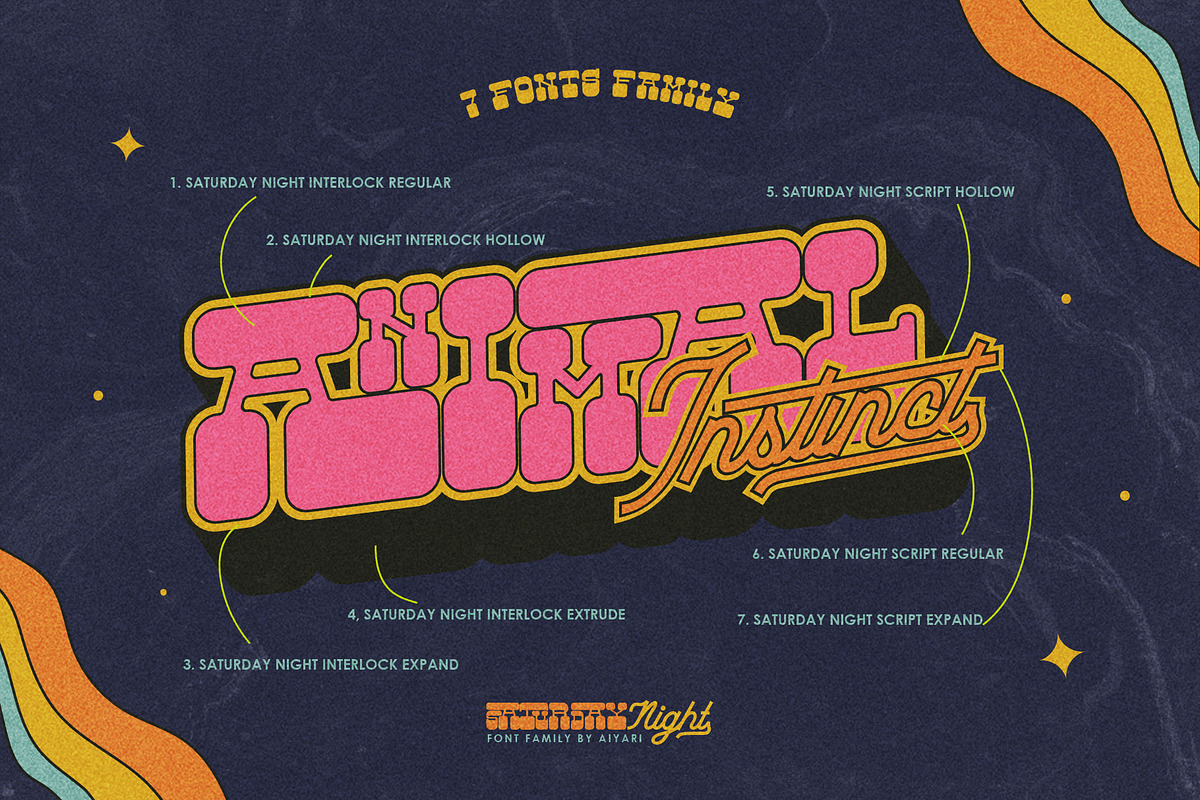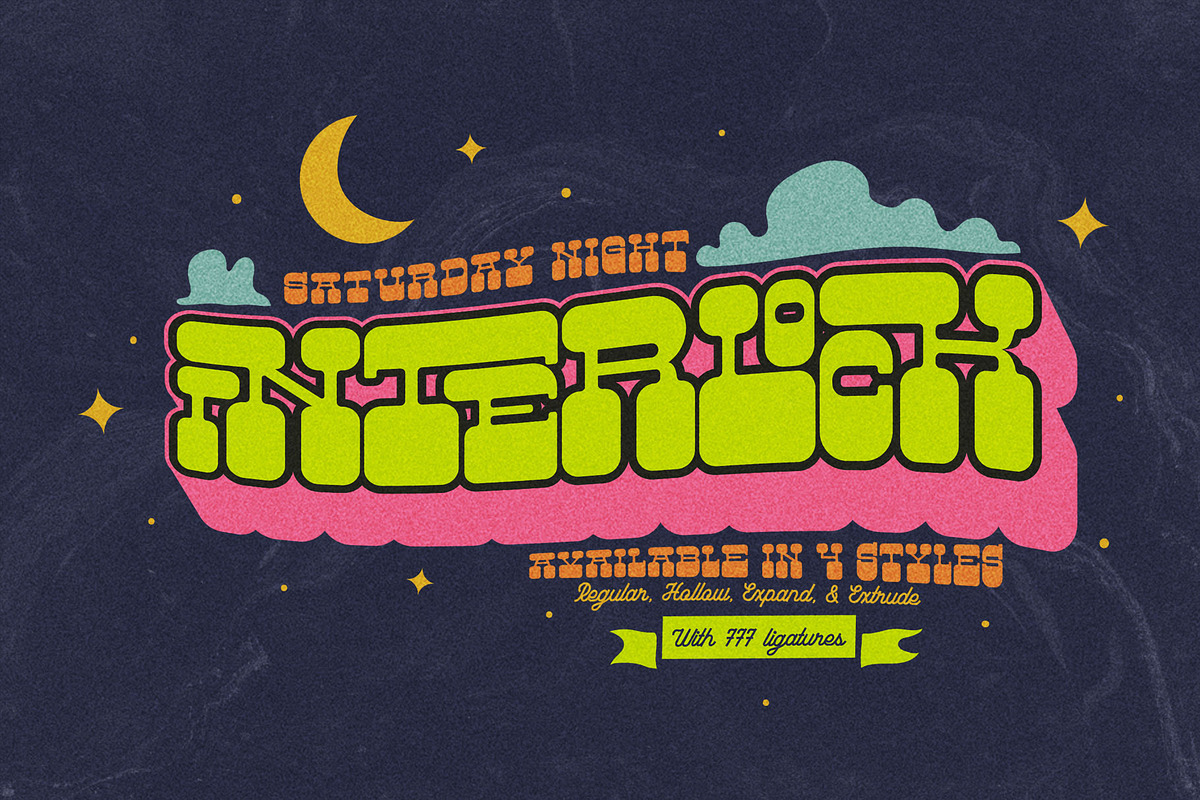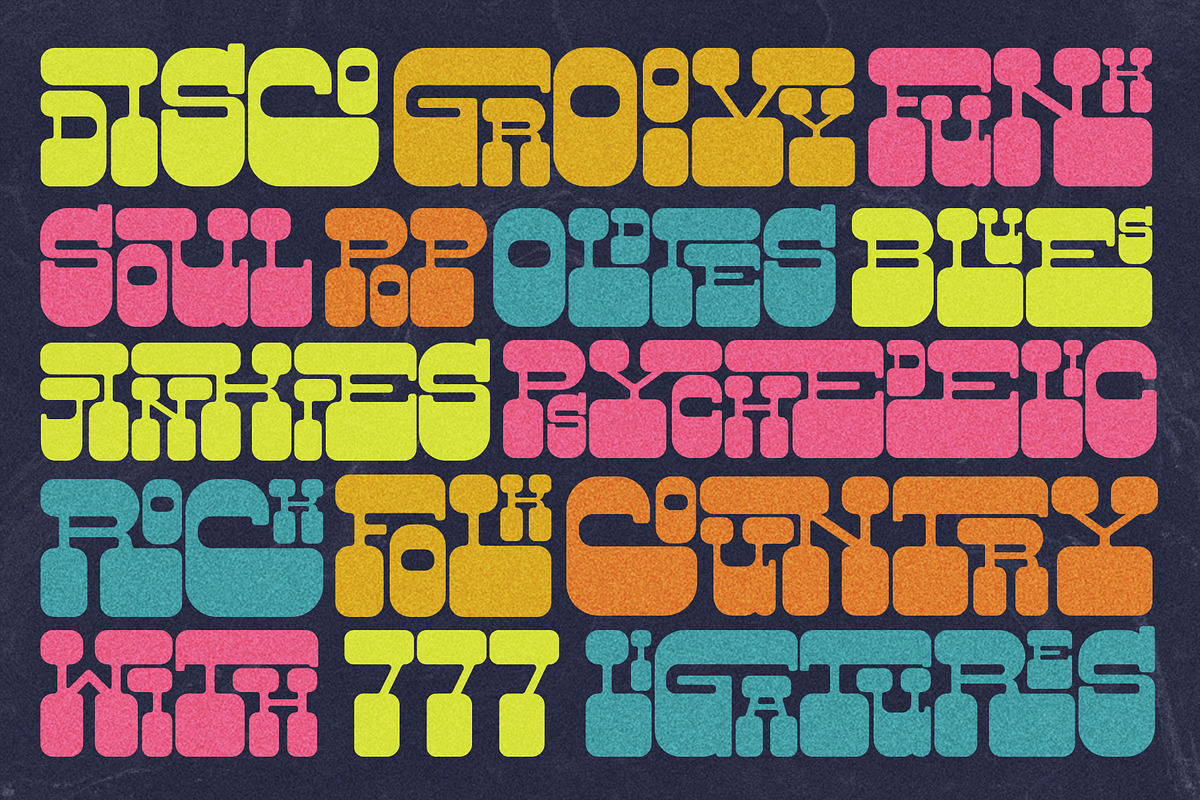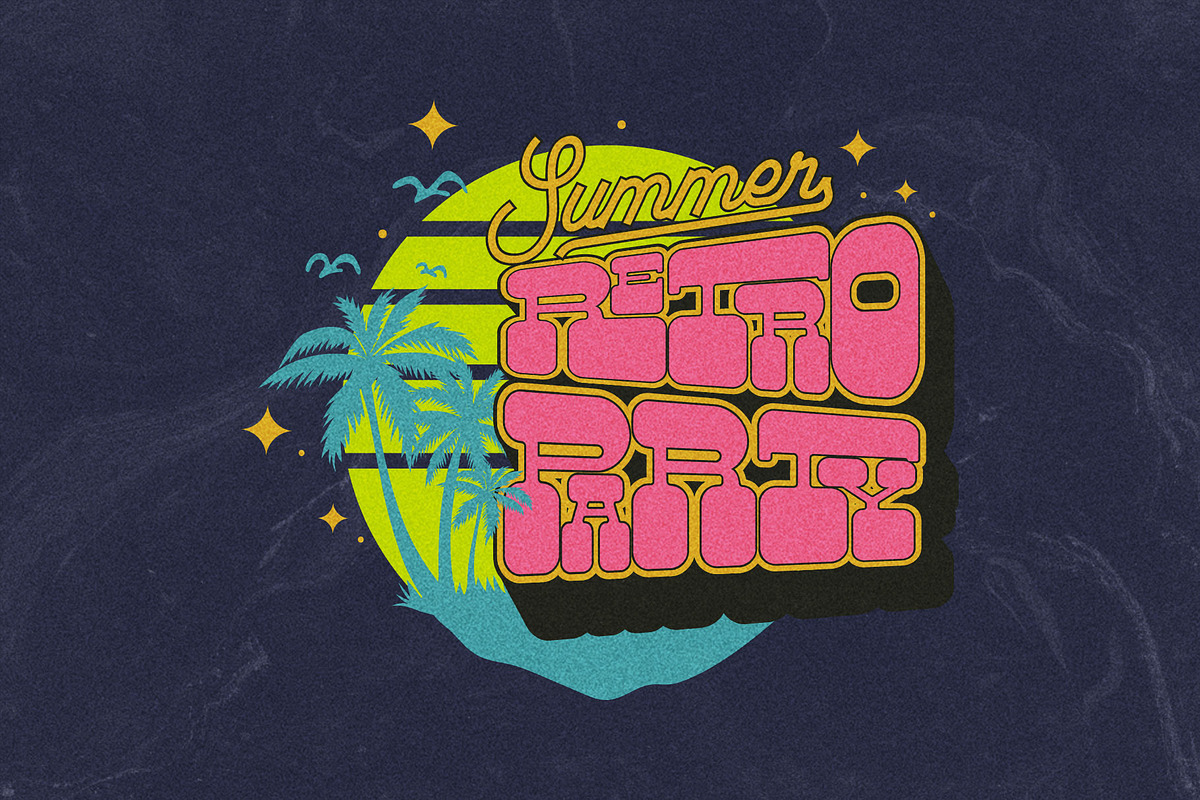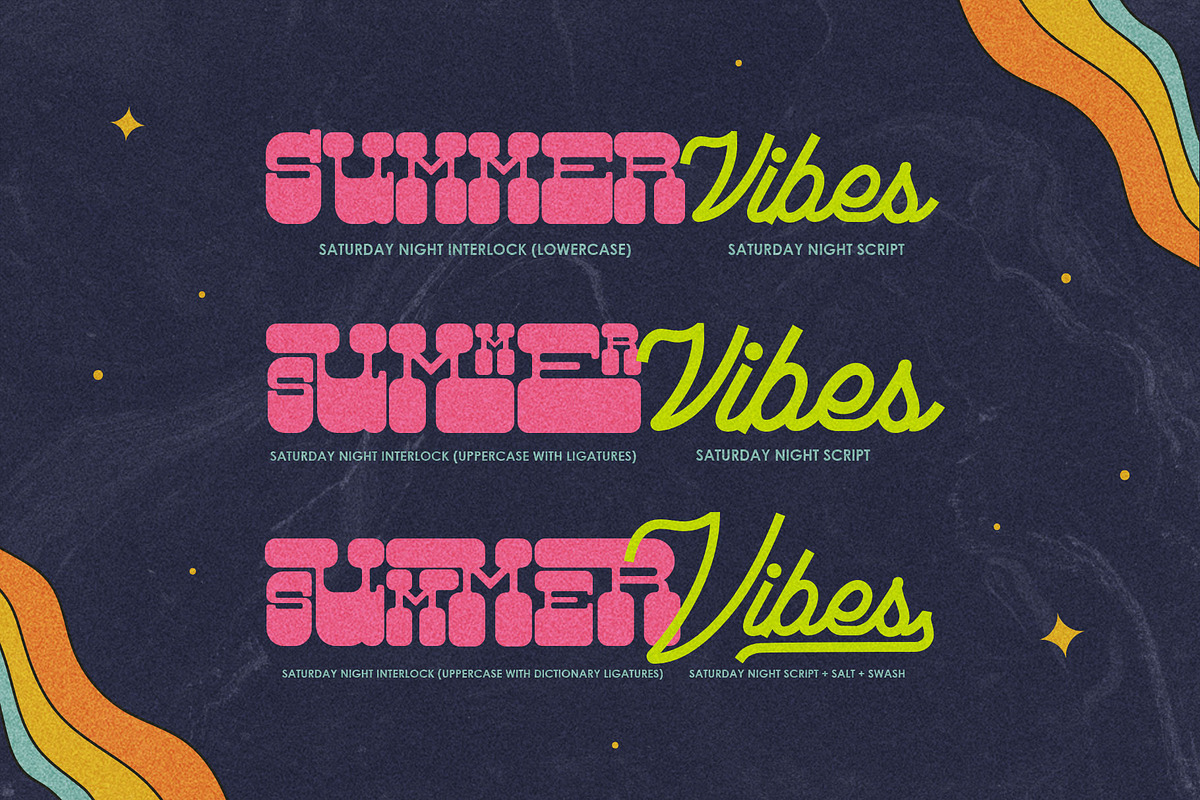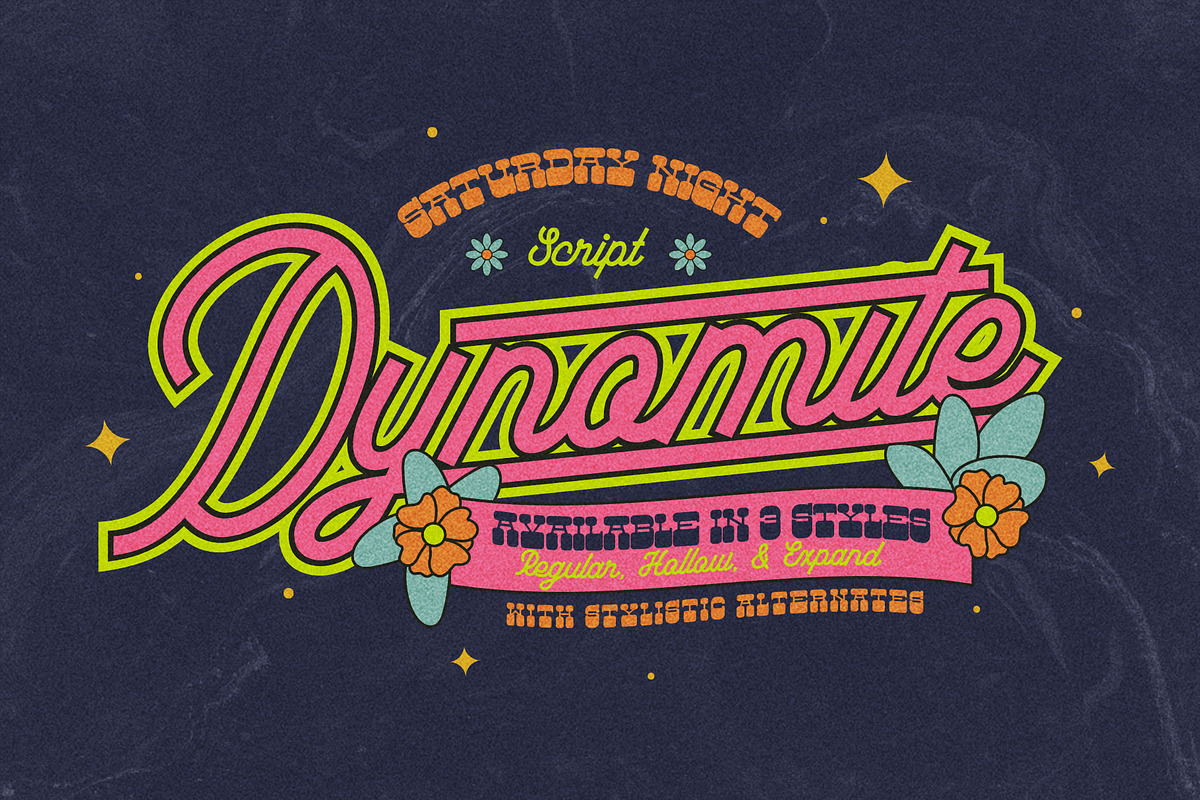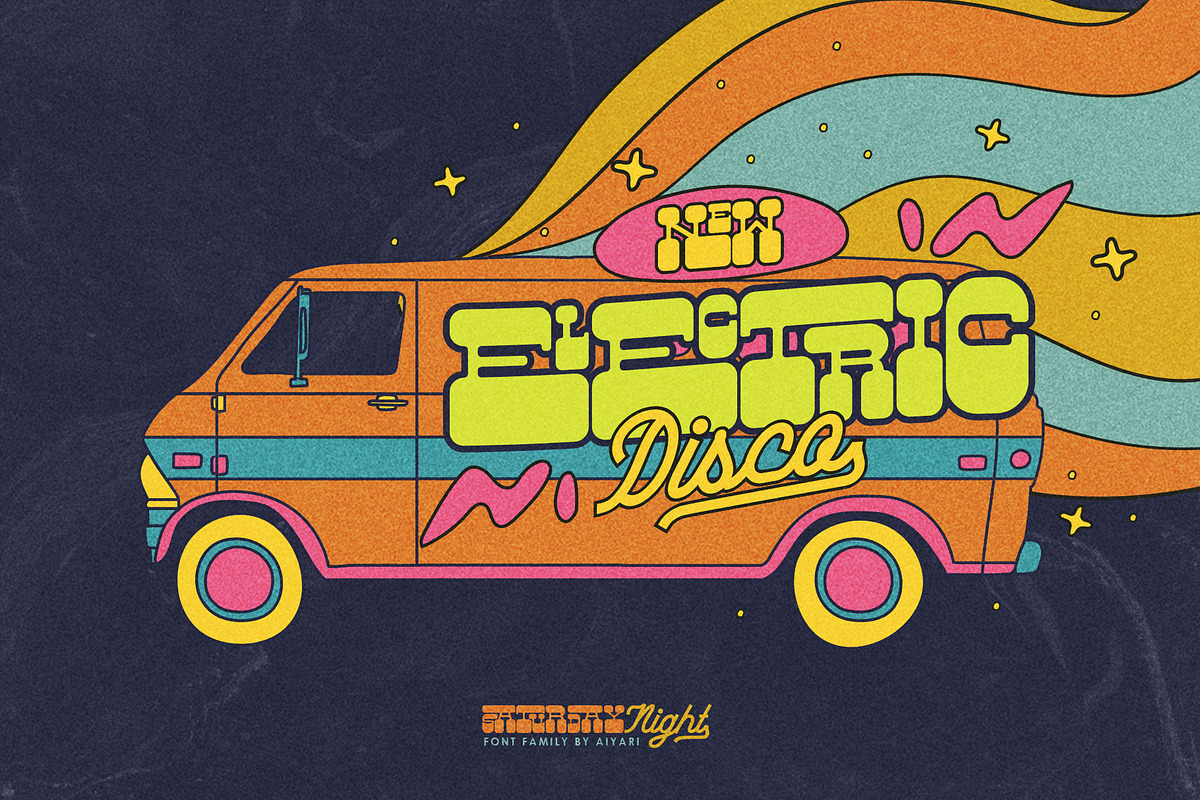
Saturday Night Font Family
Introducing a new retro font family called Saturday Night. Embracing the 70 and 80s disco music. Saturday Night came with 7 fonts family with special features such stylistic alternates, swash, and ligatures. (P.S. Saturday Night Interlock came with 777 pair of ligatures!!)
Saturday Night Font Family best uses for headings, logo type, quotes, apparel design, invitations, flyer, poster, greeting cards, product packaging, book cover, printed quotes, cover album, movie, etc